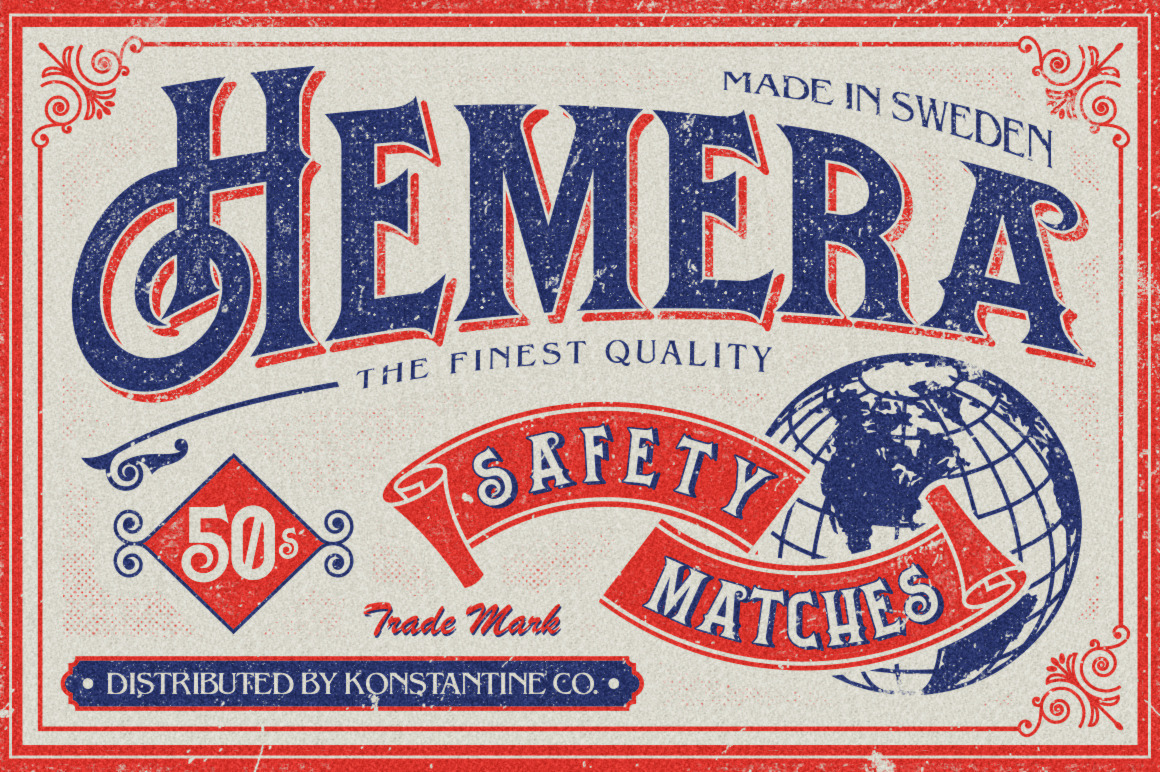
Hemera Vintage Branding font
Inspired from the old classic matchbox packages, A solid bold vintage lettering style typeface with sharp serif and a little bit decorative. Perfectly good to get your nostalgic vibes from the old stuff collections, just play with it and you'll get an instant vintage classy looks, just like the gentleman's matchbox in that era ;)